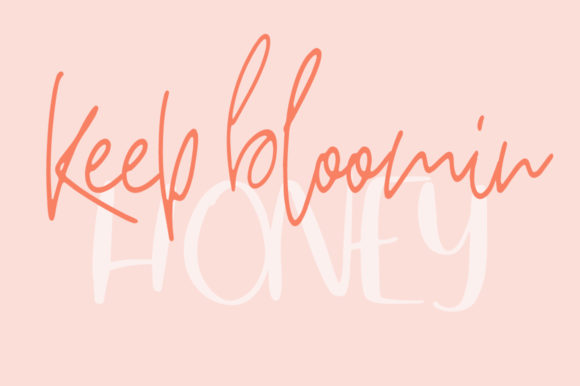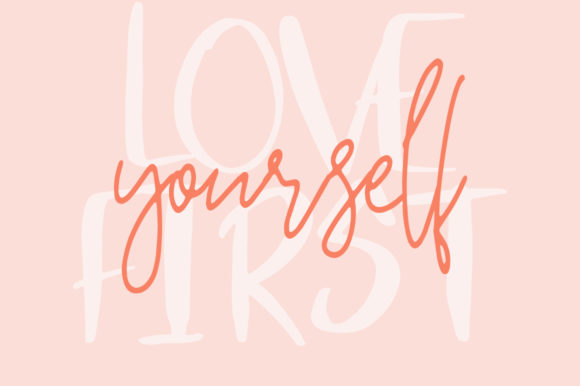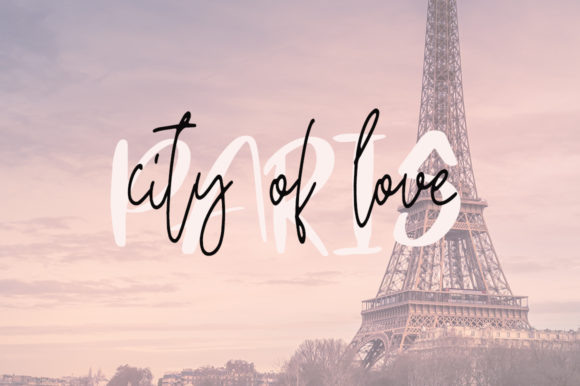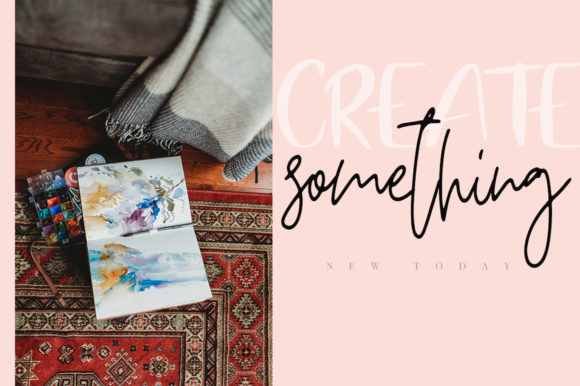
Breathe Slowly Font
About Breathe Slowly Font
Breathe Slowly is a funny brand new script font.
Every single letter has been carefully crafted to make your text look beautiful and quirky.